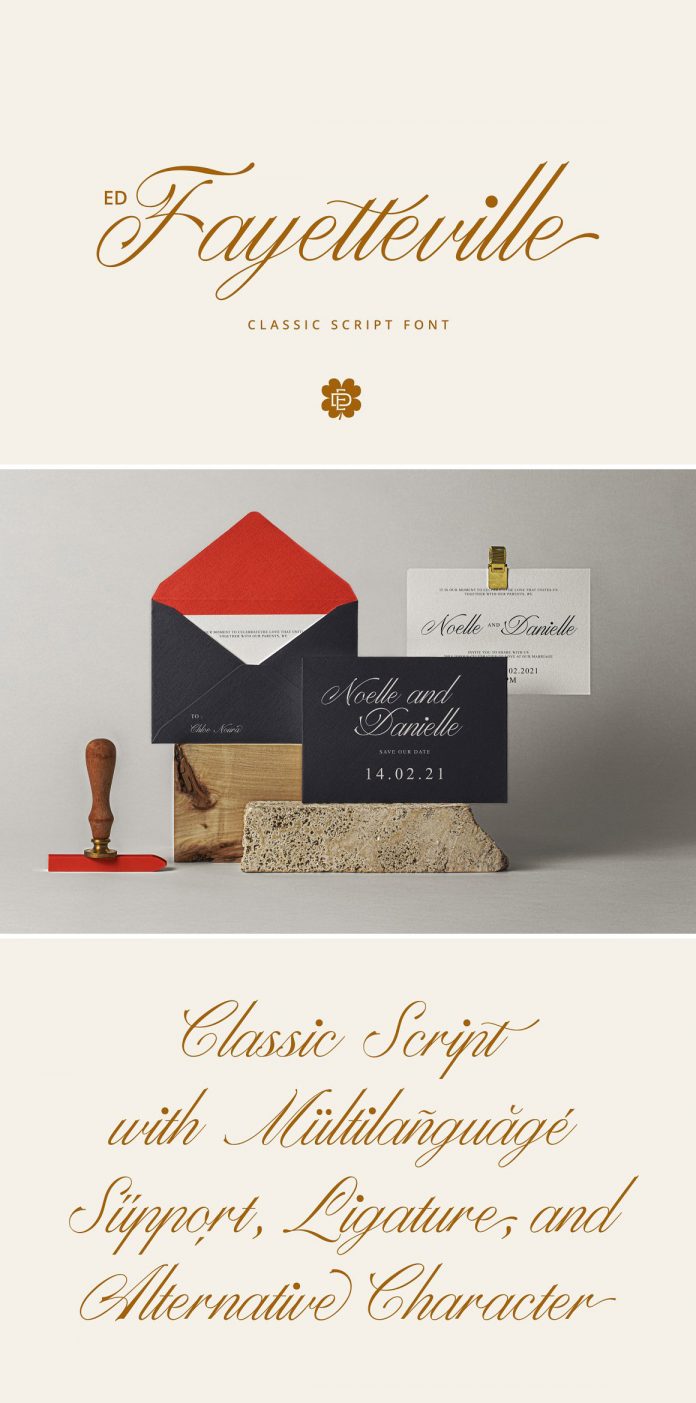
Take a look at ED Fayetteville, a clean and elegant classic script font.
Created by independent type foundry Emyself Design, ED Fayetteville Script was primarily designed for display use. This playful script font comes with numerous typographic features including ligatures, alternative characters, and support for multiple languages. This font is well suited for different design projects such as branding, logo design, wedding invitations, decorations, and more. Just click on one of the following links to learn more about this beautiful script font.